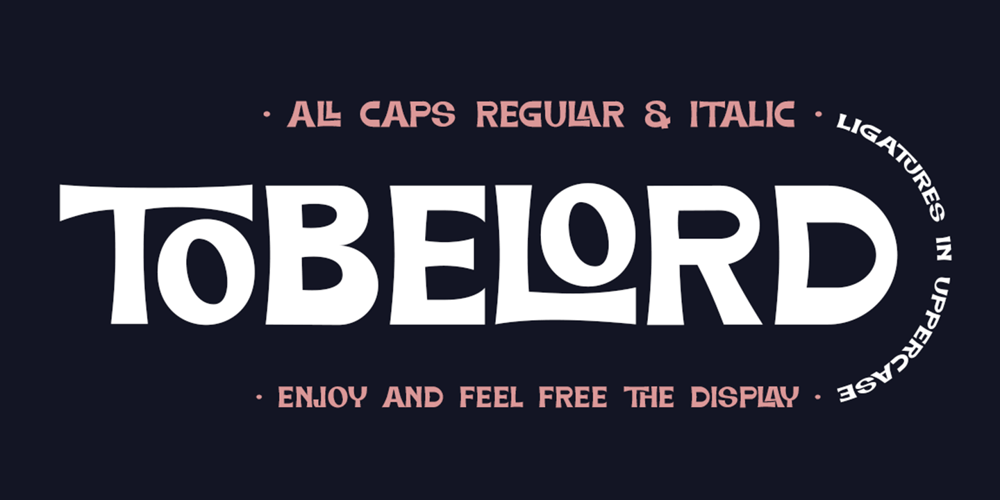
Tobelord
Tobelord font
Tobelord Font Family was designed by Sarwo Edhi Prayitno and published by Haksen. Tobelord contains 2 styles and family package options. TOBELORD is a strong modern sans serif style with All Caps feel nice balanced. Its wide range of uppercase with ligatures allow versatile design options and works perfectly for headlines, logos, posters, packaging, T-shirts and much more.Ligatures feature is default setting in Adobe Illustrator or Adobe Photoshop in Uppercase character. So when you want not to use the ligatures.Open glyphs panel : In Adobe Photoshop choose tool Window >> Character and then please klick fi symbol In Adobe Illustrator choose tool Window >> Type Open Type and then please klick fi symbol Have a great day,Haksen